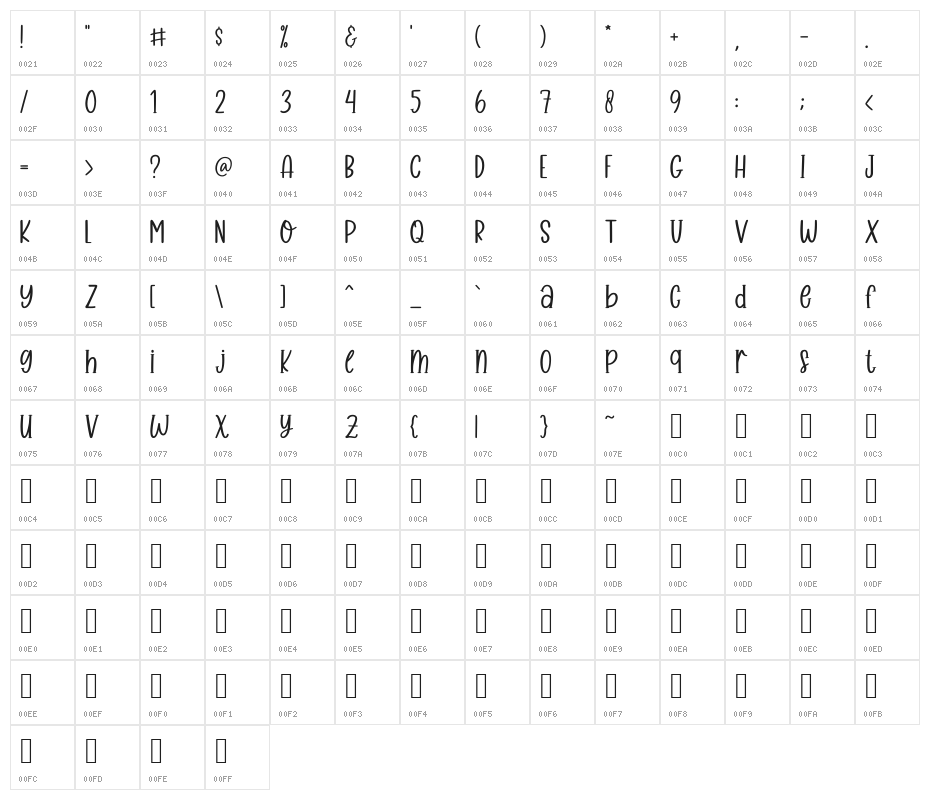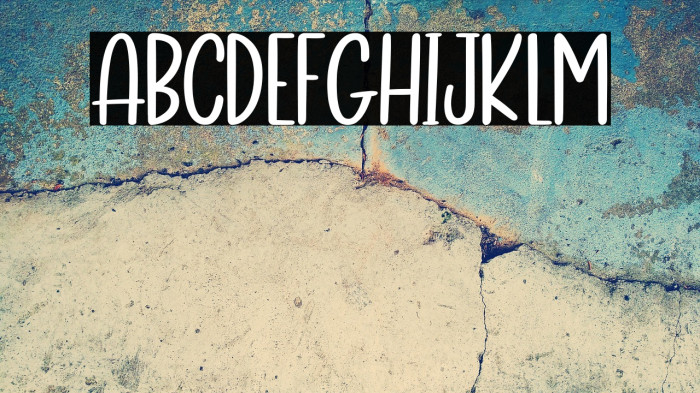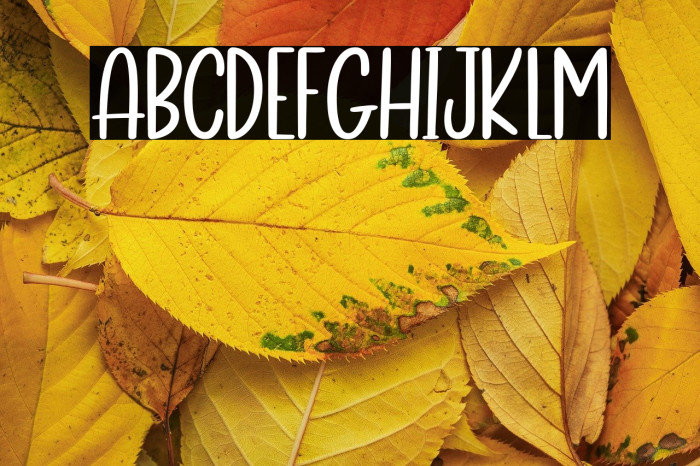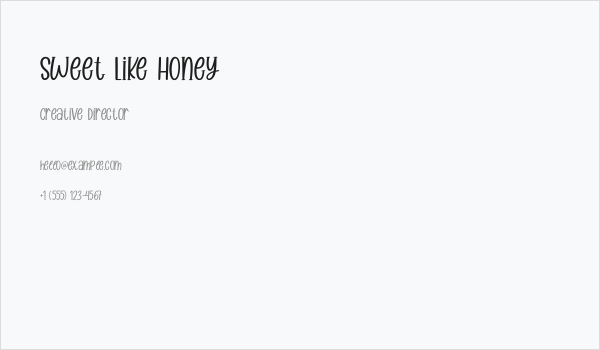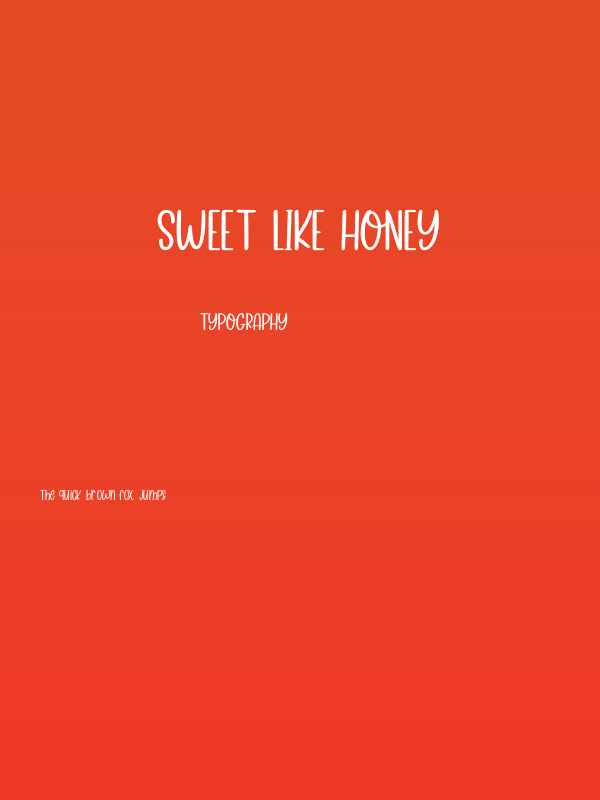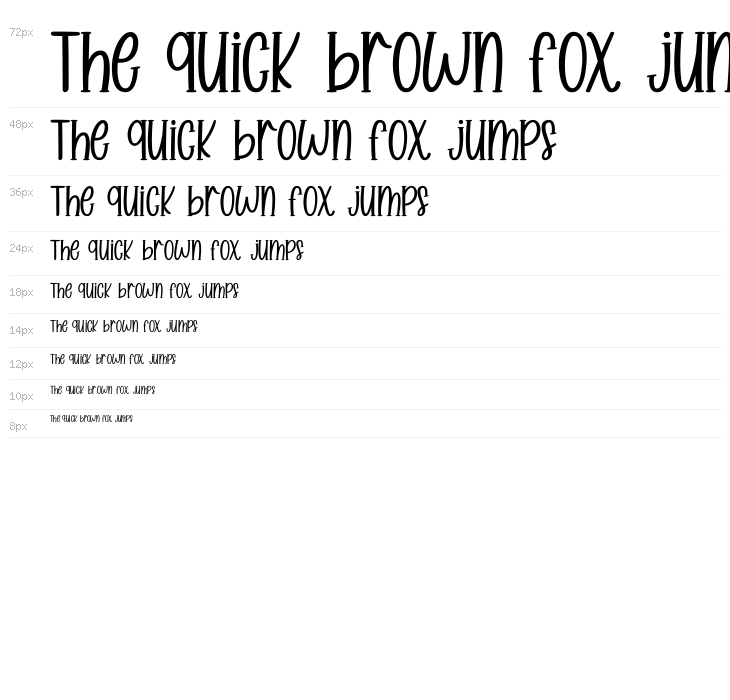
Sweet Like Honey Font
Sweet Like Honey Description
This font features a playful and whimsical style with a handwritten appearance. The letters are slightly slanted, giving a casual and friendly vibe. The strokes are consistent in width, providing a uniform look across all characters. The uppercase letters are bold and prominent, while the lowercase letters maintain a charming, flowing script. The numbers and special characters follow the same playful design, making this font versatile for various creative projects. Its unique style is perfect for adding a personal touch to any design.
| Proposed Projects | Ideal for greeting cards, invitations, children's books, and playful branding. |